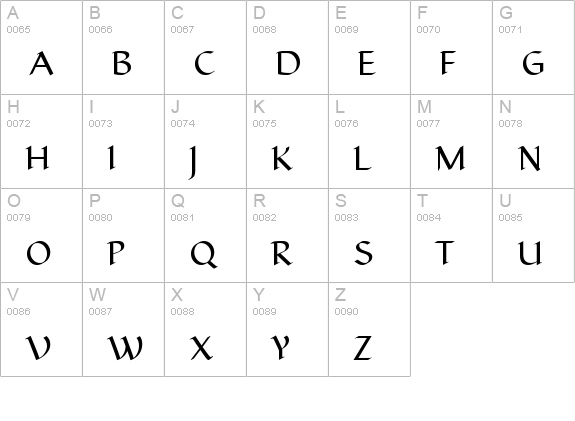
Hermainita Bold is a strong, high-contrast variant in the Hermainita typeface family \xE2\x80\x94 well suited to headlines, attention-grabbing titles, and strong calls-to-action.
Hermainita Bold is a stunning and versatile font that exudes elegance and sophistication. With its bold and striking appearance, this font is perfect for adding a touch of drama and impact to your designs. The distinctive letterforms of Hermainita Bold make it ideal for headlines, branding, logos, and more. The best part? Hermainita Bold is available for free download at FontsMarket.com. Now you can elevate your projects with this beautiful font without any cost. Don't miss out on this opportunity to enhance your designs with the timeless appeal of Hermainita Bold. Download it now and let your creativity shine.